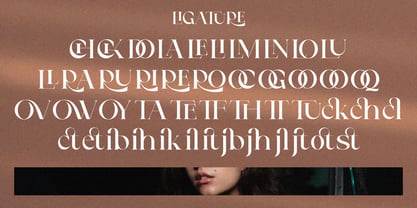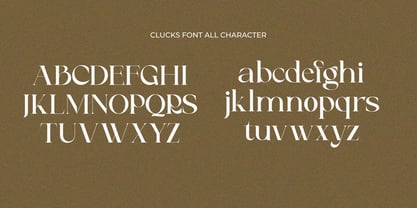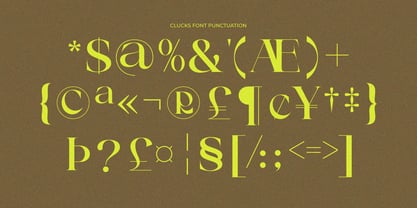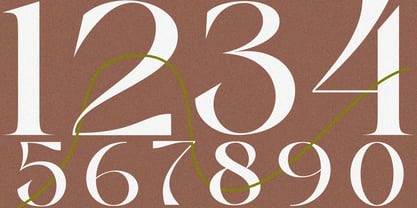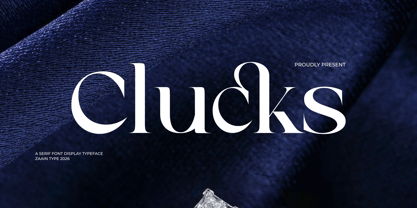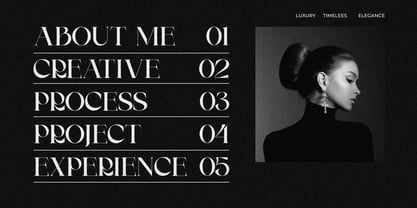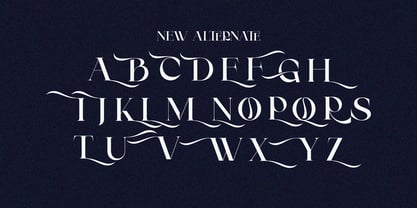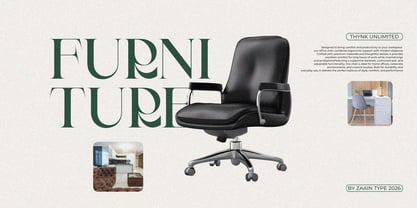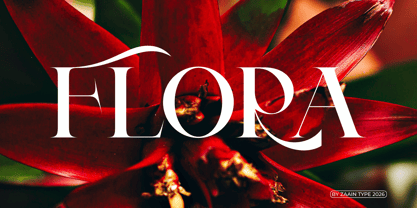
Clucks
par Zaain Type
La famille de polices Clucks a été conçue par Ju Naen et publiée par Zaain Type. Clucks contient 2 styles et options de package familial. En savoir plus sur cette famille
Clucks is an elegant modern serif typeface crafted to bring sophistication, style, and timeless beauty to your creative projects. Featuring graceful letterforms, refined contrast, and beautifully balanced proportions, Clucks is designed to make every word stand out with confidence and class.
Whether you're creating luxury branding, editorial layouts, fashion campaigns, cosmetic packaging, wedding stationery, or premium logos, Clucks delivers a polished and professional look that effortlessly enhances your designs. Its distinctive serif details combine classic inspiration with a contemporary touch, making it suitable for both modern and vintage-inspired aesthetics.
Clucks is a versatile display serif that works beautifully for headlines, magazine covers, social media graphics, product packaging, book covers, photography watermarks, invitations, and elegant visual identities. Every character is carefully crafted to provide excellent readability while maintaining a unique and memorable appearance
Concepteurs: Ju Naen
Fonderie: Zaain Type